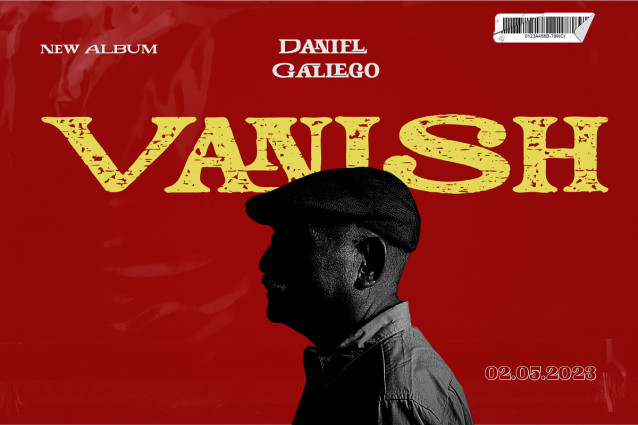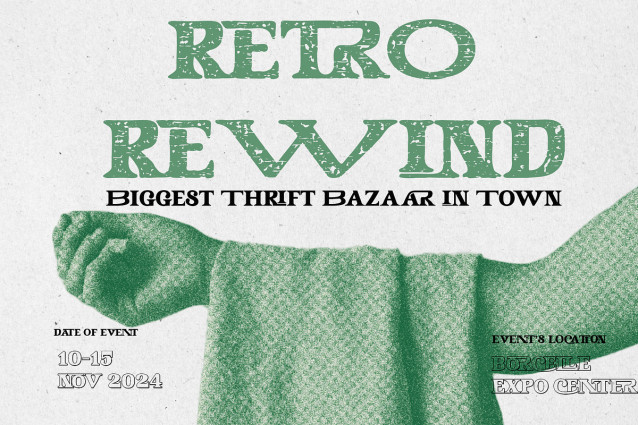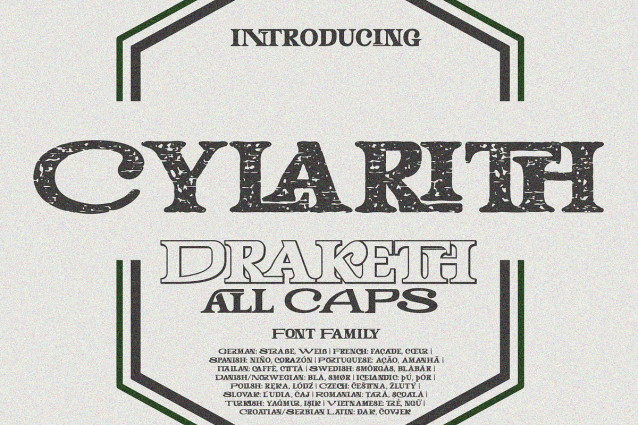
Cylarith Draketh Font
Cylarith Draketh Font is a bold ALL CAPS display font family that blends classic character with modern rough texture. Featuring strong letterforms and a distinctive distressed style, this font brings personality and impact to any design.
Perfect for posters, branding, logos, headlines, packaging, apparel, social media, and creative projects that require a powerful visual presence. CYLARITH DRAKETH CAPS comes with extended Latin language support, making it suitable for international use across multiple markets. An ideal choice for vintage-inspired, bold, rustic, or editorial design styles.